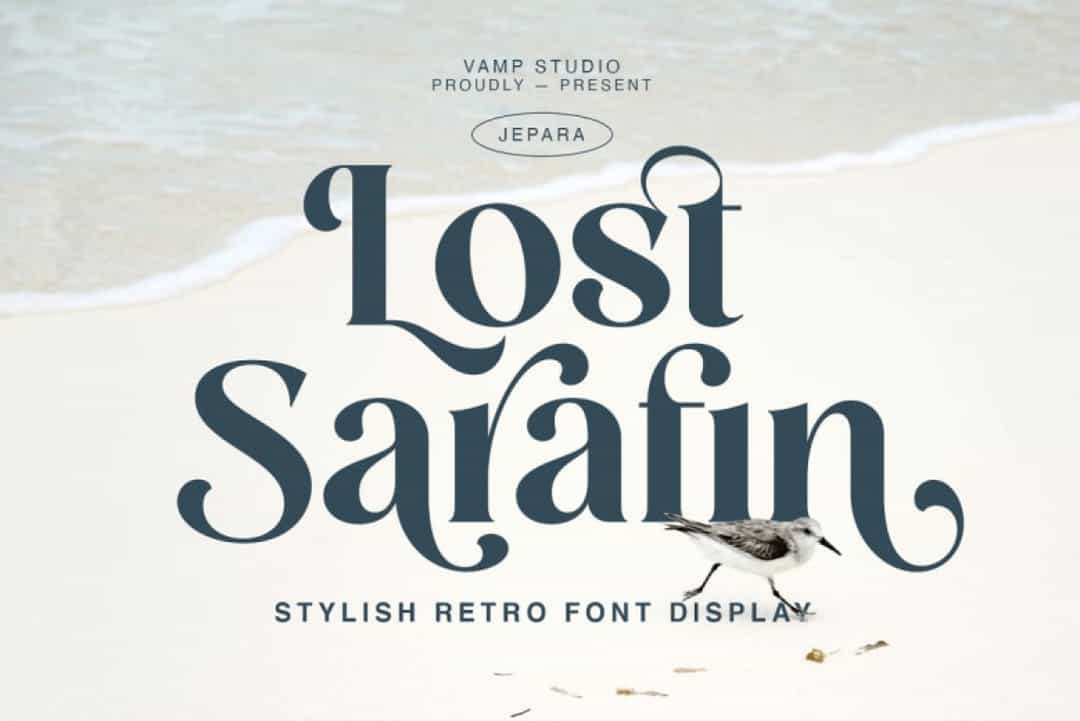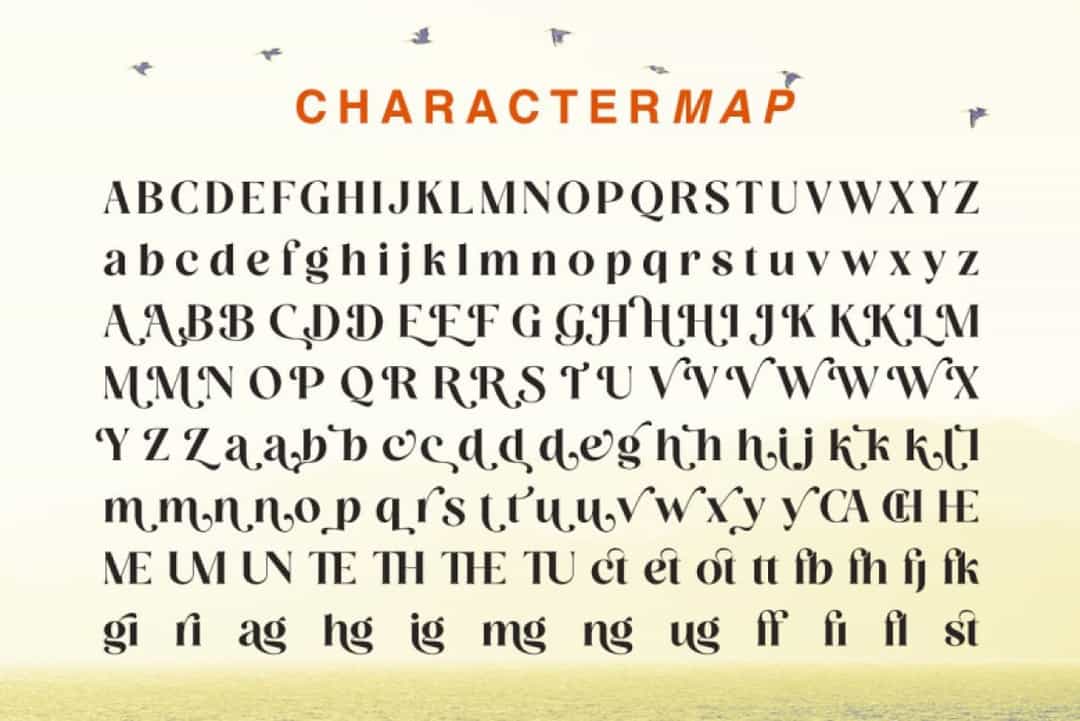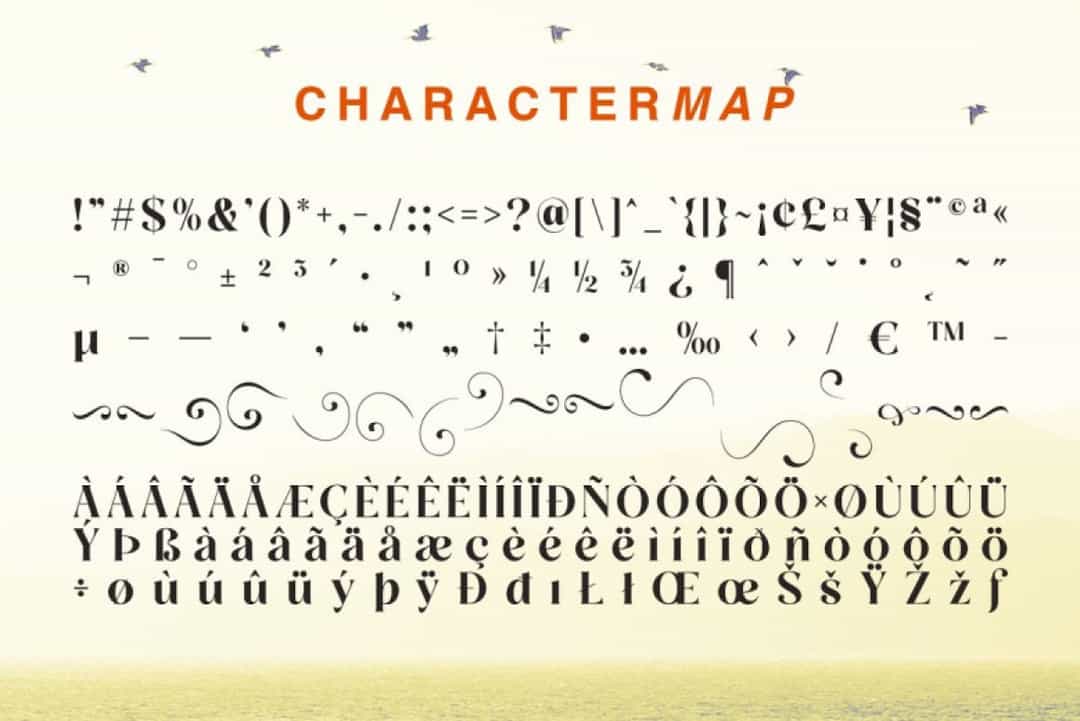
Lost Sarafin Font is a contemporary version of retro style, drawn inspiration from vintage styles with modern elements. Perfect for adding sophistication and personality to designs, each letter of this display serif font offers unique combinations of design elements for maximum flexibility.